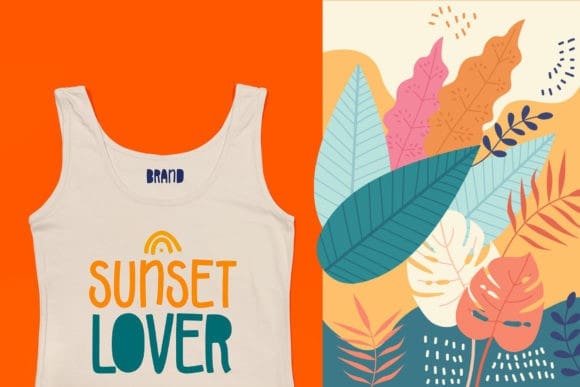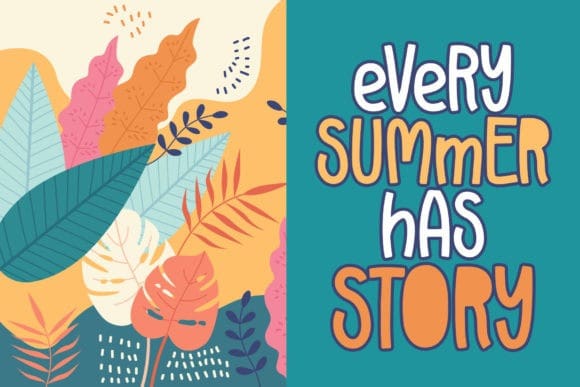
Sunday Feast Font
Sunday Feast Font is a cool and fun display font. It will look stunning on any poster, flyer or print. Use this font for your designs and explore its endless possibilities.